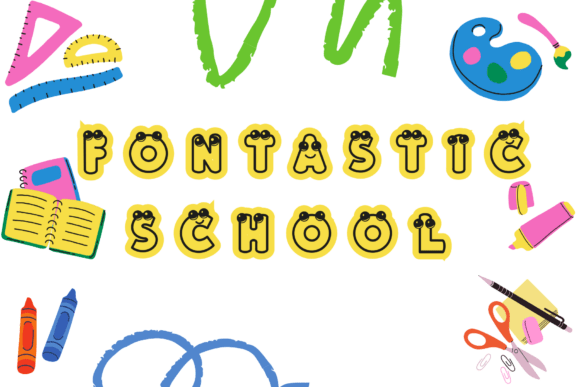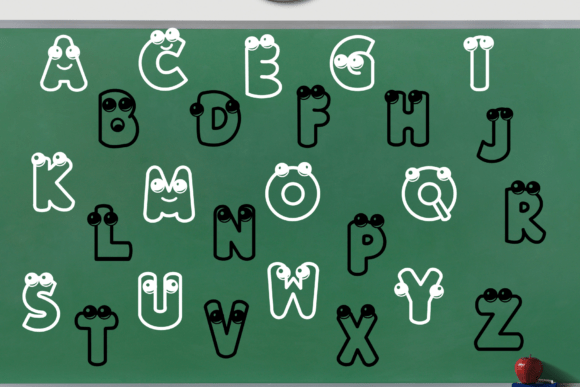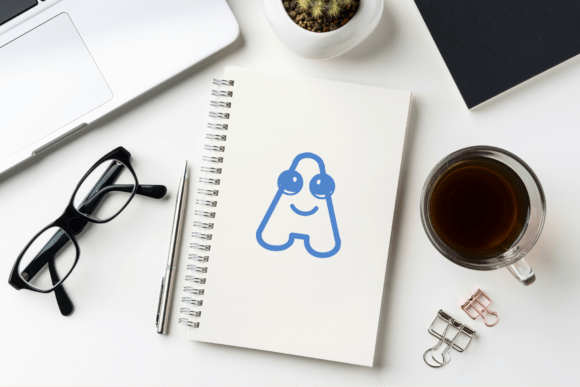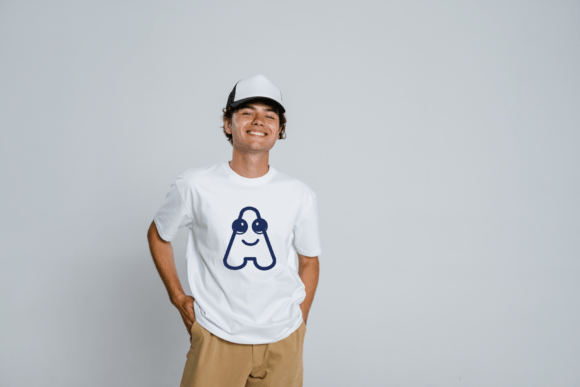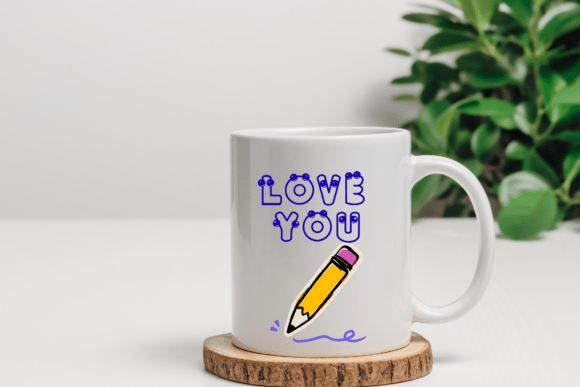
Bringing Joy to Learning with Fontastic School Font
As a designer, have you ever struggled to find the perfect font for a children’s project or educational material? You know, that moment when you’re brainstorming ideas and suddenly, a spark of creativity hits – “What if I used a font that’s playful, yet engaging?” That’s exactly when I fell in love with Fontastic School Font. This charming decorative font is designed to bring imagination to every letter, making it perfect for young learners and creative minds alike.
Fontastic School Font is more than just a font – it’s a classroom full of characters, each with its own unique personality. With its bubbly structure and cheerful energy, this font is tailor-made for children’s projects, educational materials, and anything that needs a fun, school-friendly vibe. As a designer, you’ll appreciate the versatility and charm that Fontastic School Font brings to your designs, making it a valuable addition to your creative toolkit.
- Unique Characteristics: The font features a playful, educational design, with elements of school-related icons and graphics, making it perfect for educational institutions and related businesses.
Fontastic School Font Review
Fontastic School Font caught my attention with its playful and modern aesthetic ✨. The font’s rounded edges and bold strokes give it a youthful and energetic feel that’s perfect for educational materials and children’s content. The font is also highly customizable, with a wide range of weights and styles to choose from.
- ⚠️ Limited support for complex scripts and languages
- ⚠️ Some users may find the font too playful or childish for more formal applications
- ⚠️ The font’s customization options can be overwhelming for those without extensive design experience
Overall, I think Fontastic School Font is a solid choice for designers looking for a fun and modern font for educational or children’s content. While it may have some limitations, its versatility and customizability make it a great option for those who want a font that can adapt to a variety of needs.
Tip: Use Fontastic School Font for headings and titles to add a touch of whimsy and playfulness to your designs.
Tip: Use Fontastic School Font for creating custom graphics and illustrations, such as school-themed posters and flyers.
Tip: Use Fontastic School Font for creating engaging presentations and documents, such as school reports and newsletters.
Fontastic School Font is perfect for creating school-themed designs, such as:
– School logos and branding
– Posters and flyers for school events
– Custom graphics for school websites
– Engaging presentations and documents for students and teachers